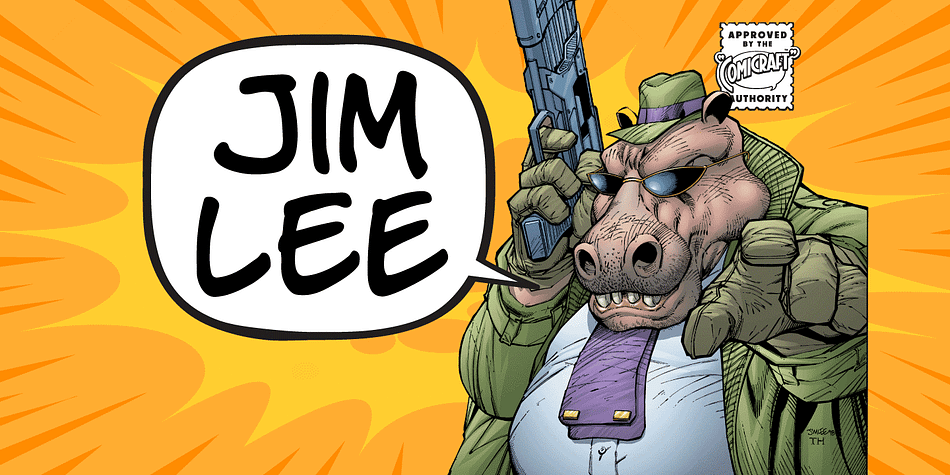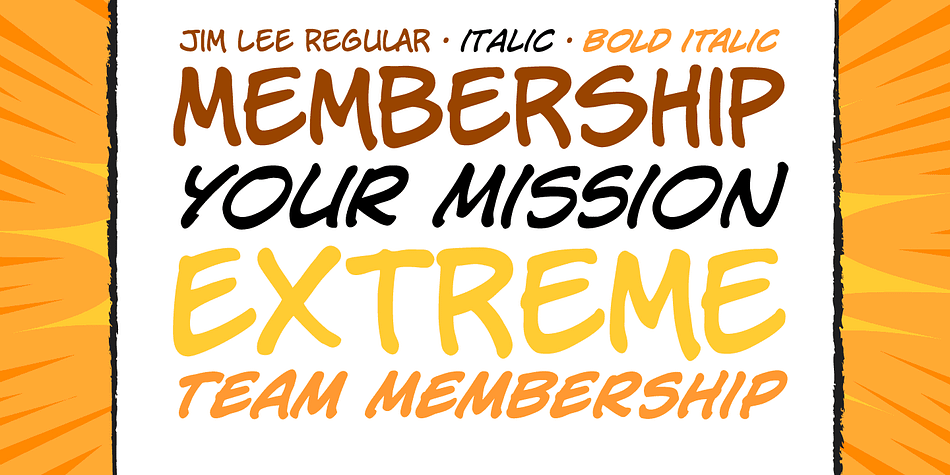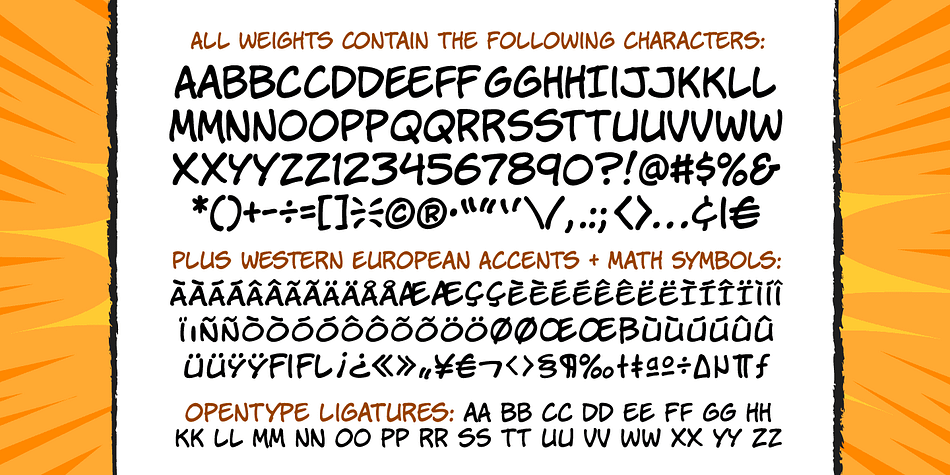
Designed by John Roshell and Jim Lee, Jim Lee is a comic and hand display font family. This typeface has three styles and was published by Comicraft.
When Jim Lee sent us pages of his latest project, DIVINE RIGHT, we knew we had to do something special for him. Something Unique. We knew we had to create a whole new look for his book. We spent weeks holed up in our Colorado mountain retreat, meditating on the true nature of leading and kerning, sketching out ideas and rejecting all but the best of the best. As the dreaded deadline doom rapidly approached, we suddenly knew we had the answer: A line of ‘Celebrity’ fonts—digitally remastered lettering based on handwriting samples of the many Artists and Creators we all know and love. Of course, our first font would have to be…the SAMMY DAVIS Jr font! But Jim didn’t like that idea and made us create a font based on his handwriting instead. You’re no fun, Jim.